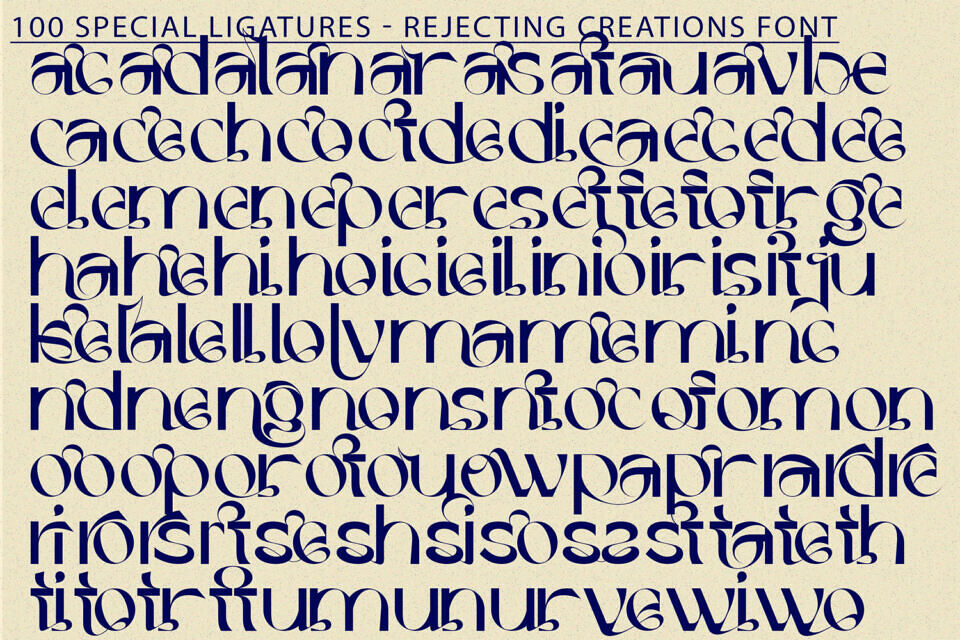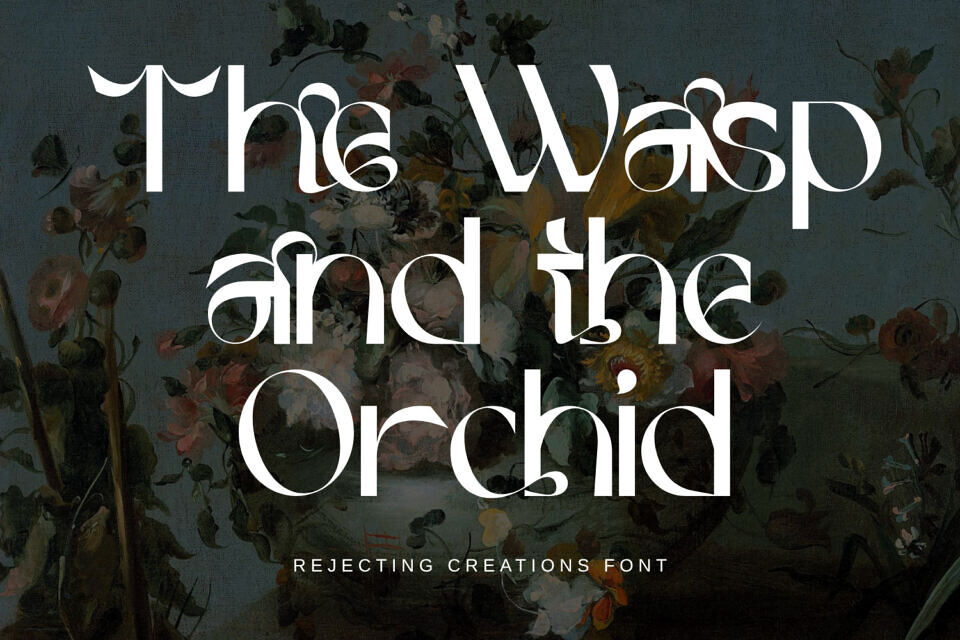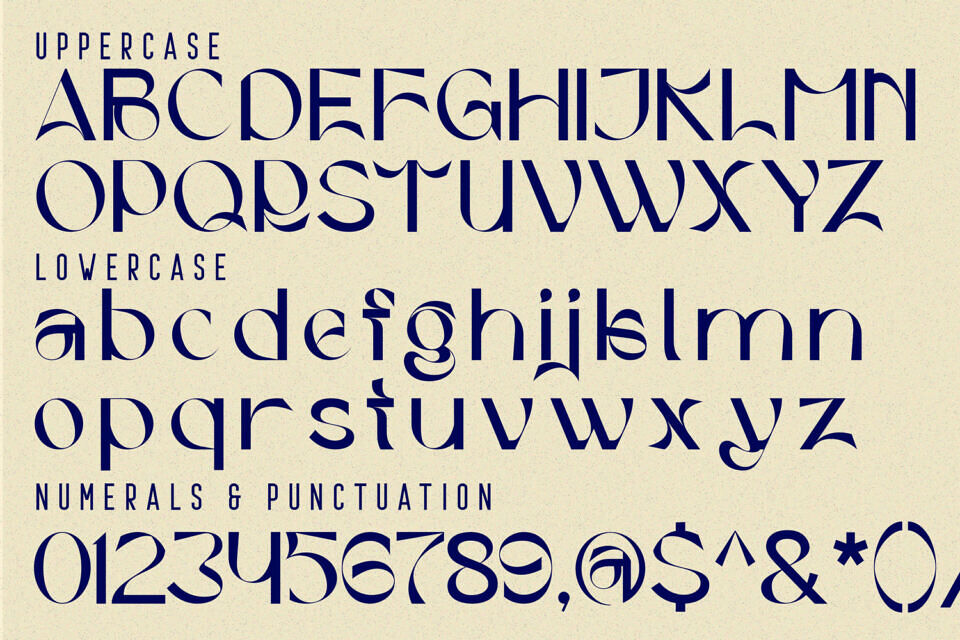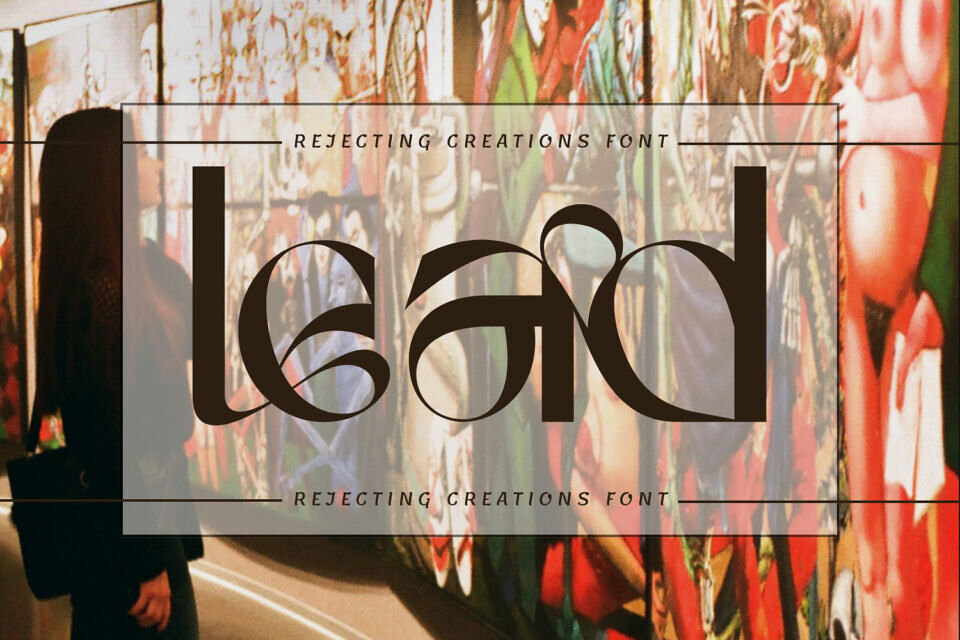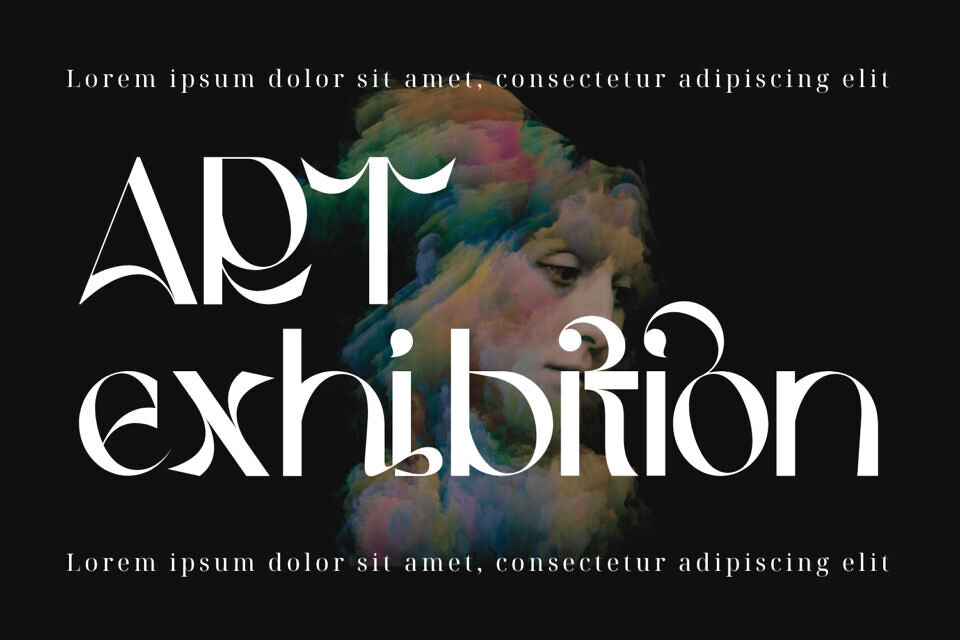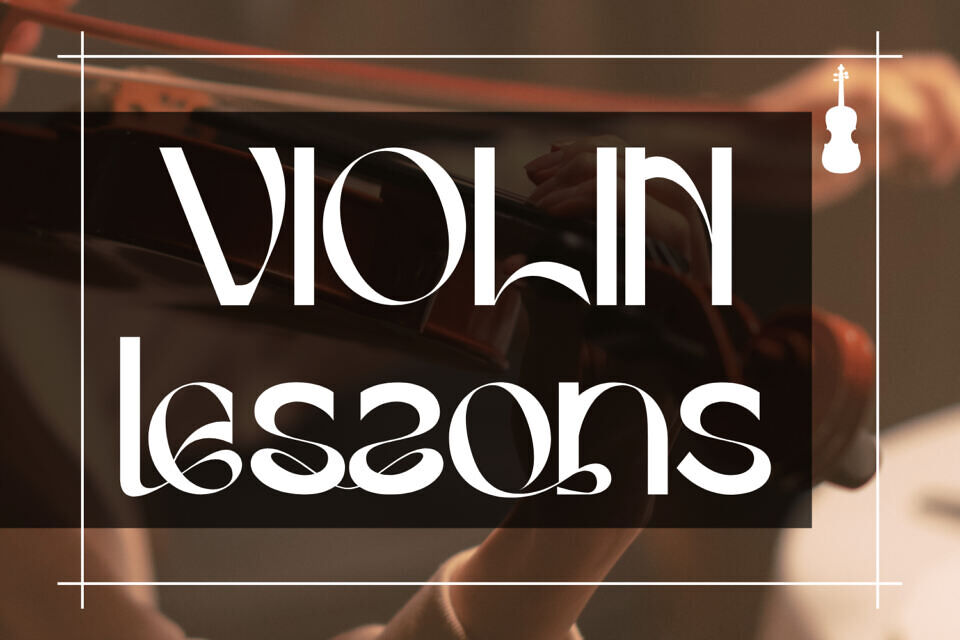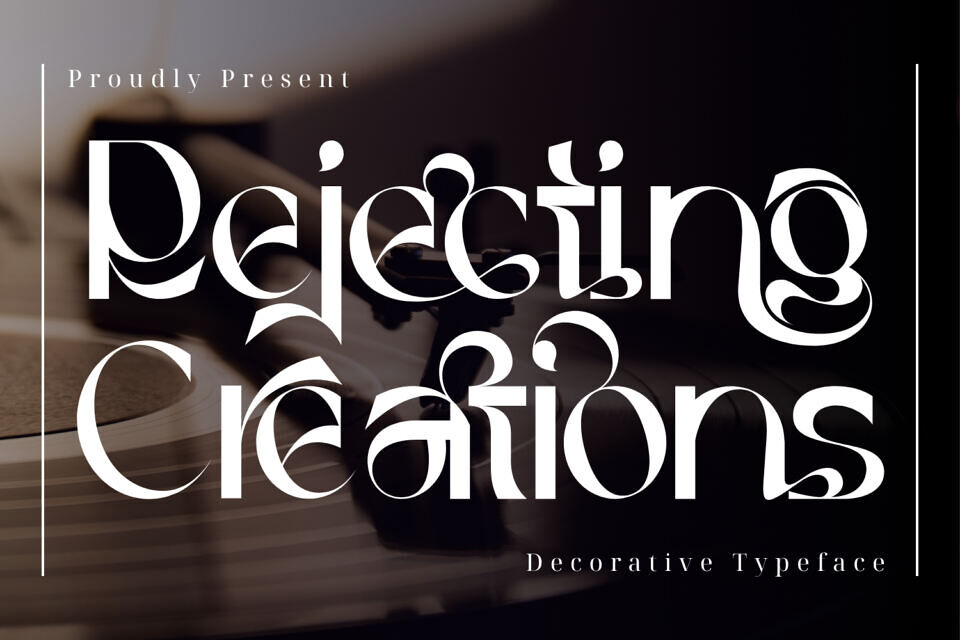
Rejecting Creations Font
Rejecting Creations – Ligature Font is a highly stylized experimental serif typeface crafted for bold visual storytelling. With sharp contrasts, unusual ligature compositions, and abstract ornamental terminals, this font was designed to push the boundaries of traditional typography.
Its avant-garde forms blend elegance with surprise, offering a sense of rhythm and movement through unexpected curves and architectural cuts. Perfect for editorial headlines, branding identities, album covers, posters, and artistic layouts that require a statement piece.